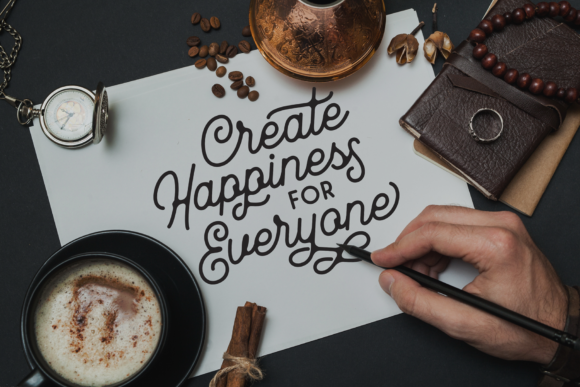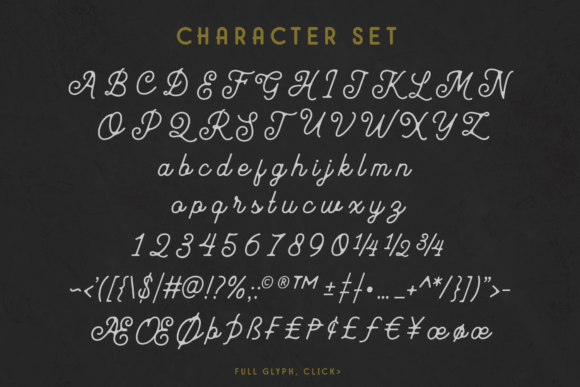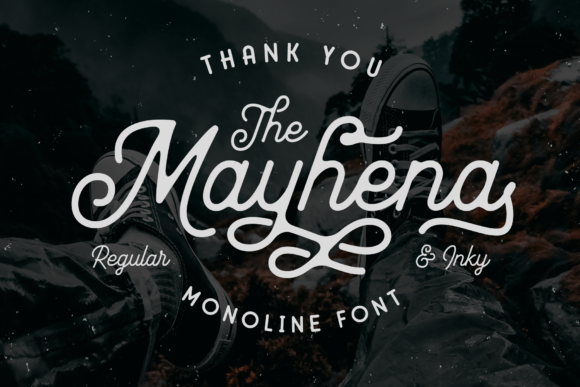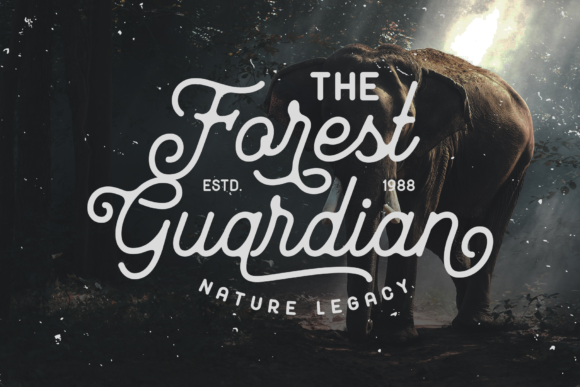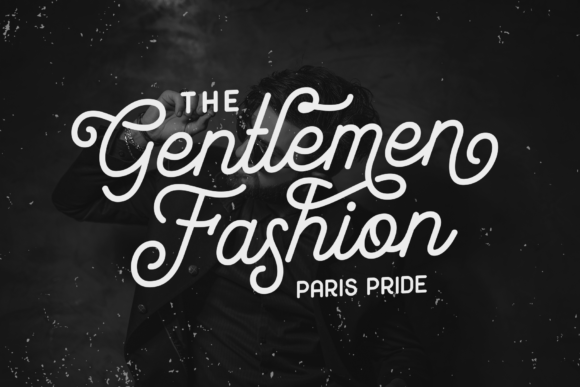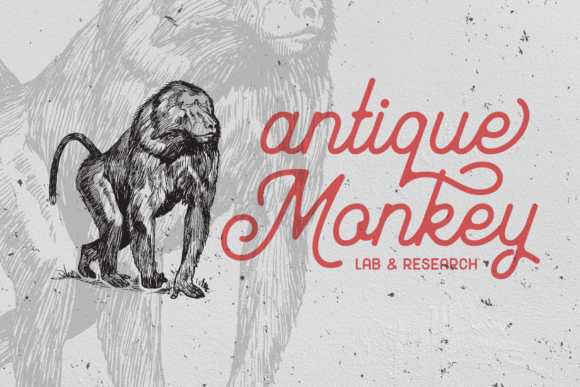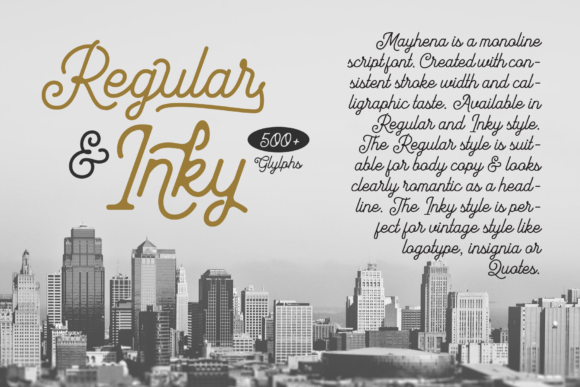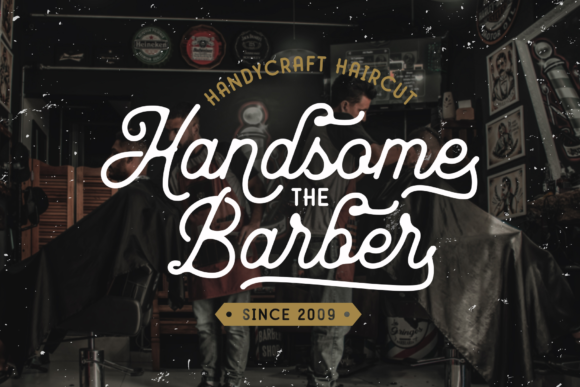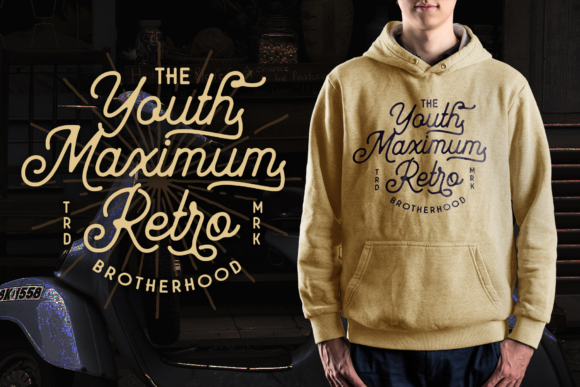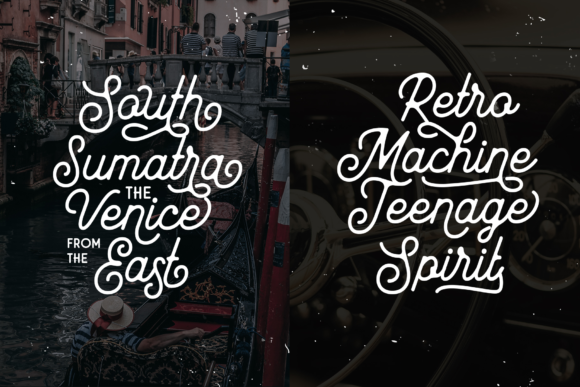
Mayhena Font
About Mayhena Font
Mayhena is a connected monoline font with a vintage style. It comes in Regular and Inky, which allows for a great variety of design projects!